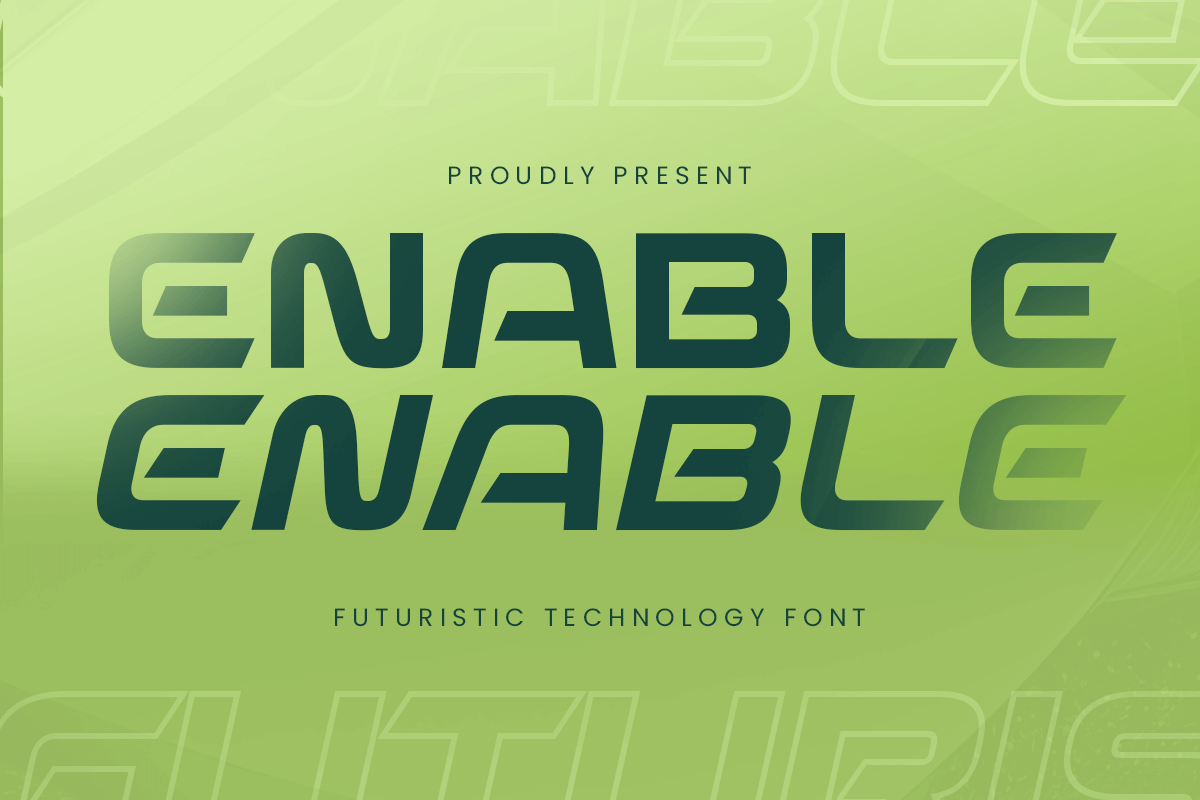
Enable
-Futuristic Technology Font
enable bold
Enable
enable bold outline
Enable
enable bold italic
Enable
enable bold italic outline
Enable
Enable - Futuristic Technology Font
Enable is a futuristic technology font built to power up your digital designs. With sleek edges, modern structure, and a clean sci-fi vibe, it's perfect for UI/UX projects, startup branding, tech event posters, gaming titles, and all things digital. Enable font offers a balanced mix of readability and visual impact—making it an ideal choice for high-tech presentations and futuristic visuals.
Designed with the future in mind, Enable font brings a sense of speed, innovation, and tech-forward attitude to your work. From app interfaces to logotypes and streaming visuals, this font adapts across mediums without losing its sharp, modern edge.
Plug into tomorrow with Enable—a font that makes bold, intelligent design effortless.
Enable Futuristic Technology Font Features:
• Sleek and Modern Tech-Inspired Style
• Ready with 4 Styles: Regular, Outline, Italic, Outline Italic
• Ideal for UI/UX, Branding, Posters & Gaming